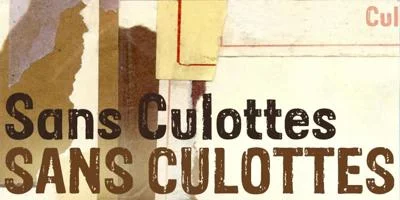
Sans Culottes Font
Sans Culottes Font is perfect for revolutionary design projects including political campaign materials, protest signage, underground music posters, activist organizations, rebellious fashion brands, independent publishing, street art graphics, and countercultural movements. This bold typeface excels in documentary film titles, historical exhibitions, alternative magazines, revolutionary theater productions, and projects that challenge conventional design standards with authentic radical spirit.
What makes Sans Culottes Font exciting is its powerful revolutionary character that embodies the spirit of social change and political awakening. The font features strong, defiant letterforms with deliberate imperfections that reflect grassroots authenticity and democratic ideals. Its unapologetic design captures the essence of popular movements and citizen empowerment, making it perfect for projects that need to convey truth, justice, and the voice of the people. The bold strokes and assertive presence command attention while maintaining readability.
Sans Culottes Font comes in multiple family variations including regular, bold, condensed, and distressed styles. Each weight preserves the distinctive revolutionary character while offering different levels of visual impact and historical authenticity. The font family includes alternate characters, protest-inspired ligatures, and weathered effects that provide designers with powerful tools for creating genuinely impactful political and social commentary.
For designers creating meaningful social impact campaigns, Sans Culottes Font delivers exceptional power for projects that champion democratic values and social justice. This remarkable typeface transforms ordinary text into compelling calls for action that resonate with audiences who value freedom and equality. Whether you're designing activist materials, creating documentary graphics, or developing historical presentations, this font brings authentic revolutionary spirit to your most important social and political communications.